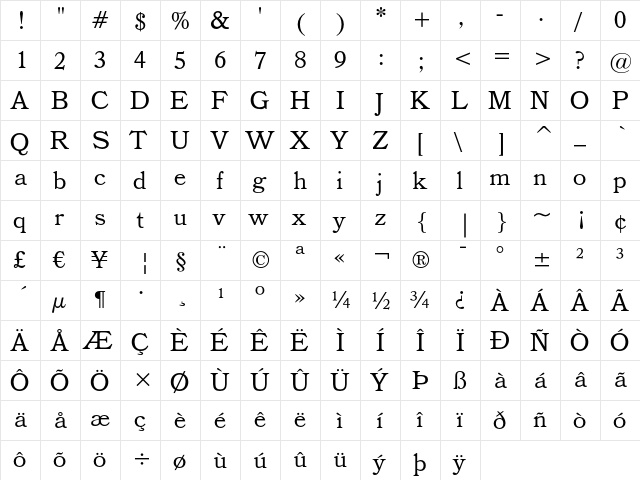
Bookman Headline
Design Context for Bookman Typeface
Bookman is a composed and adaptable typeface that performs quietly and consistently across a wide range of design contexts.